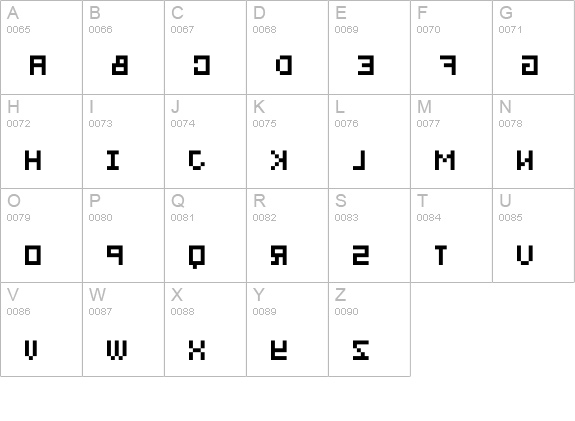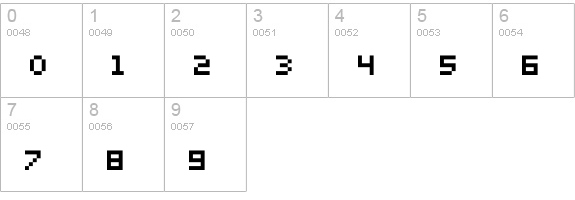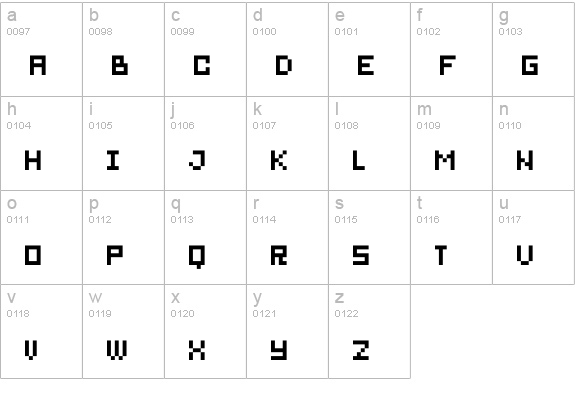
Introducing Bitmirror font, a sleek and modern typeface that effortlessly combines elegance with a touch of sophistication. This versatile font is perfect for a wide range of design projects, from branding to editorial and everything in between. With its clean lines and contemporary aesthetic, Bitmirror font exudes a sense of professionalism and refinement. What's even better is that Bitmirror font is completely free to download at FontsMarket.com. Yes, you read that right - you can elevate your designs with this stunning font at no cost. So why wait? Head over to FontsMarket.com now and add Bitmirror font to your collection today!